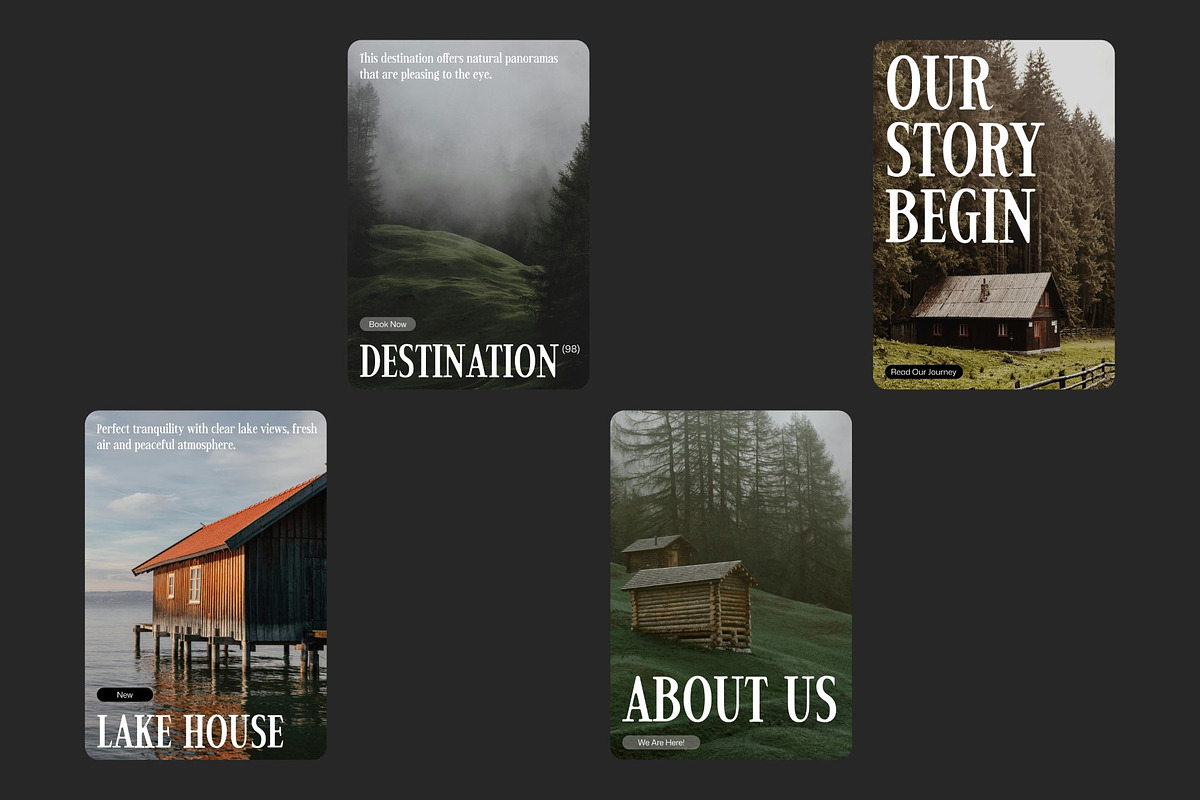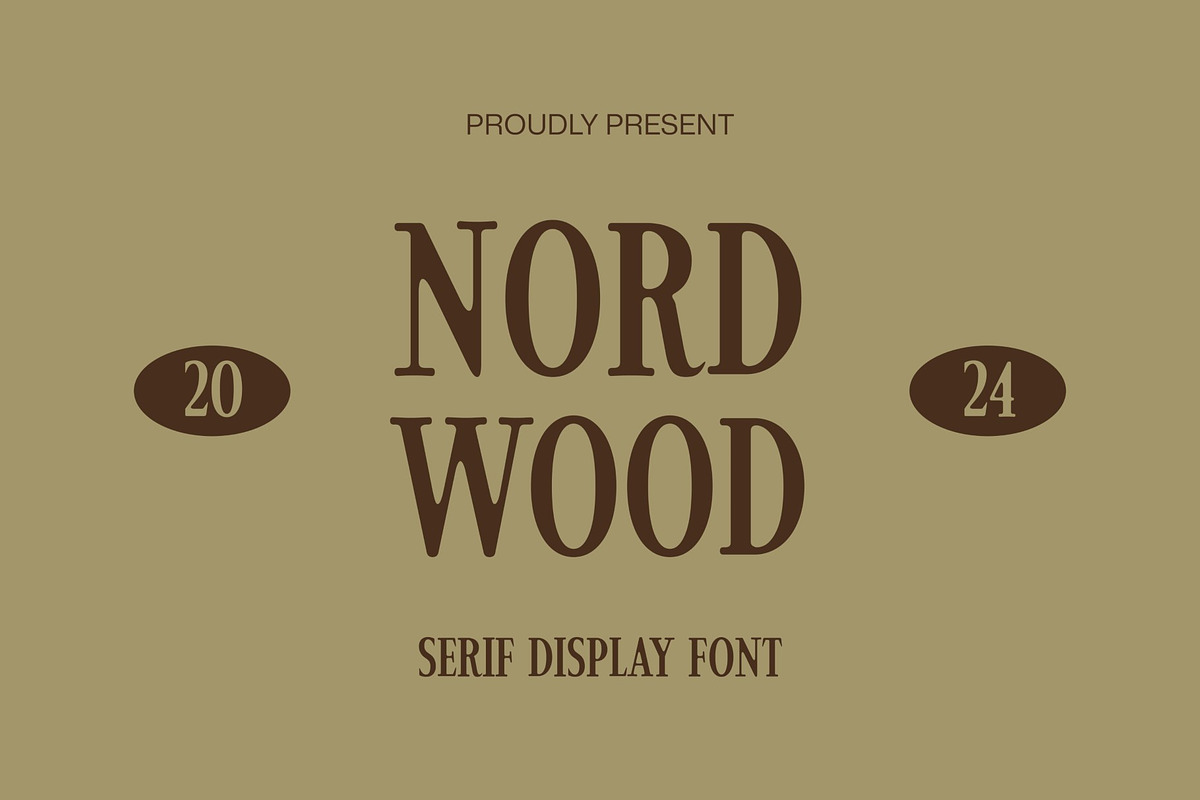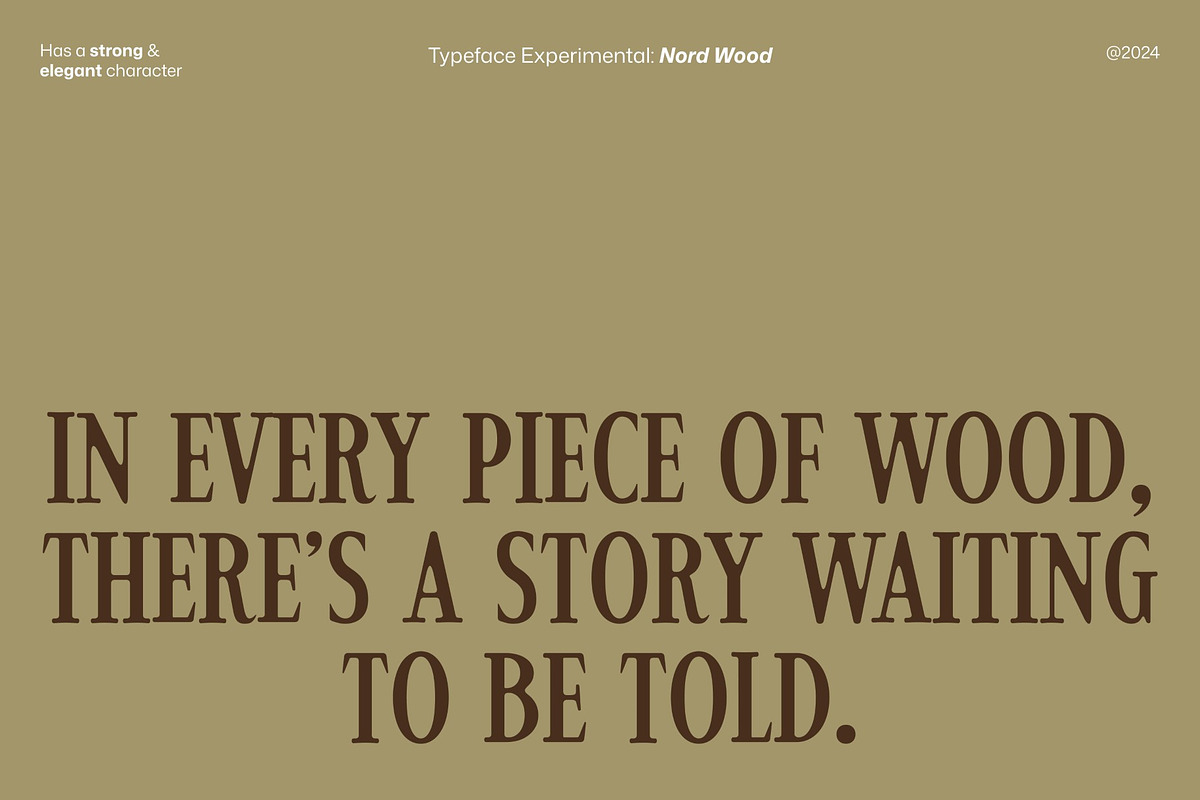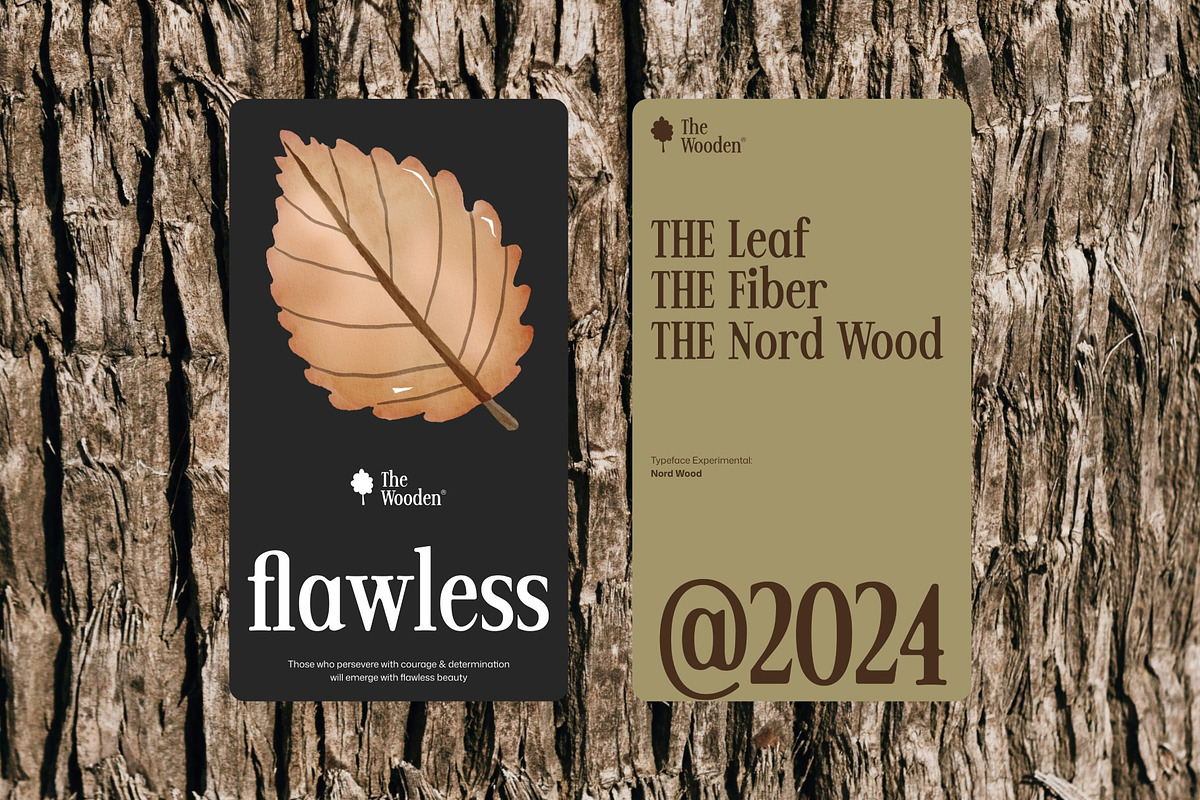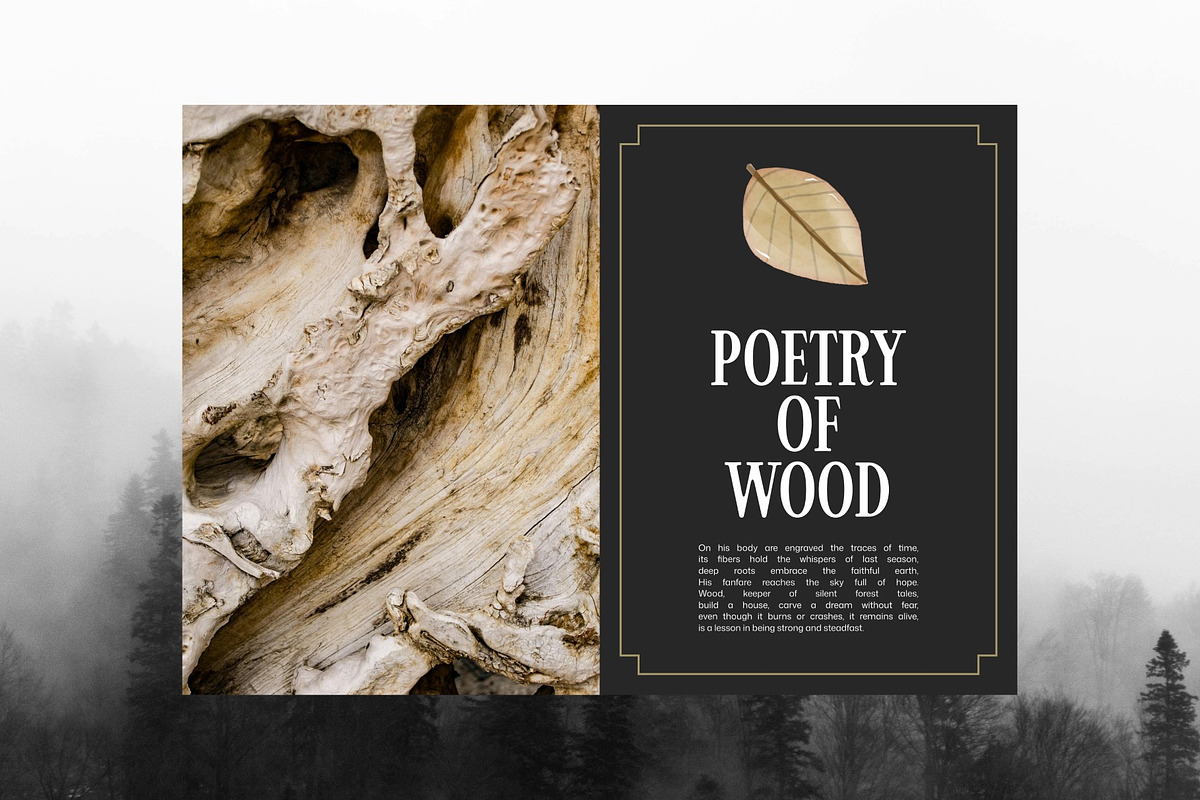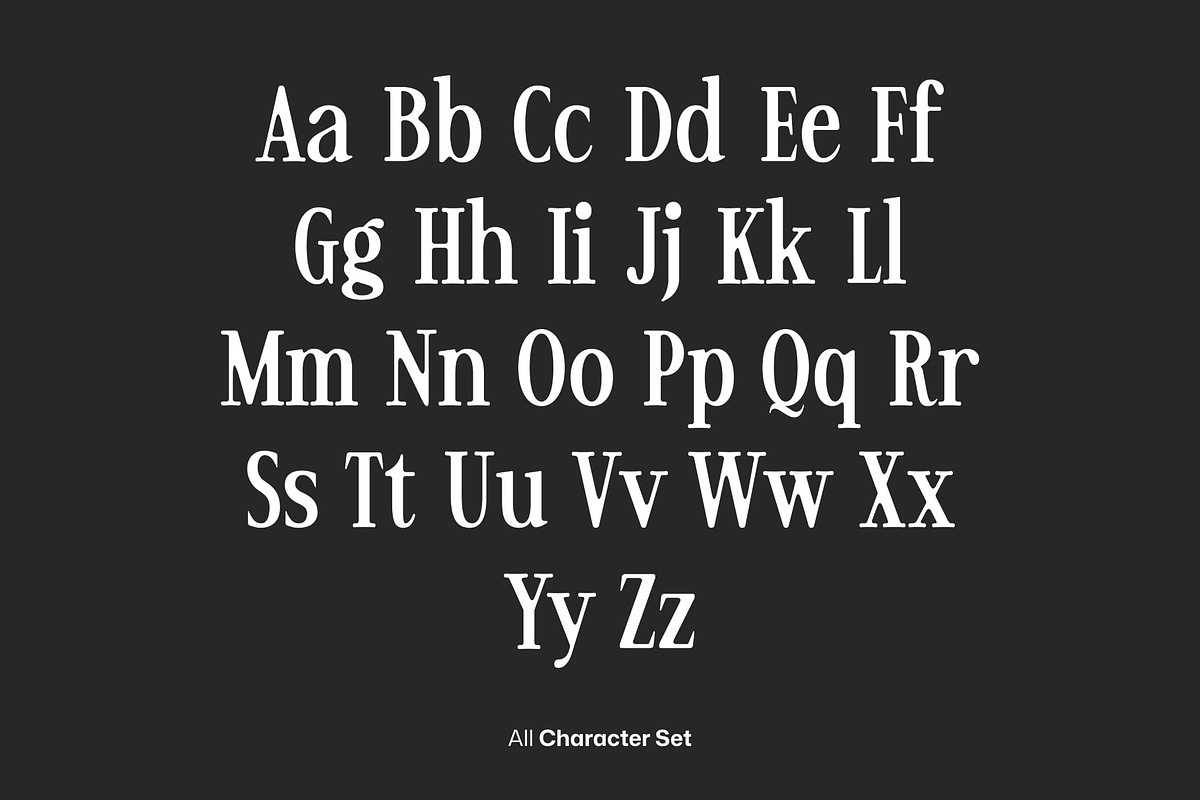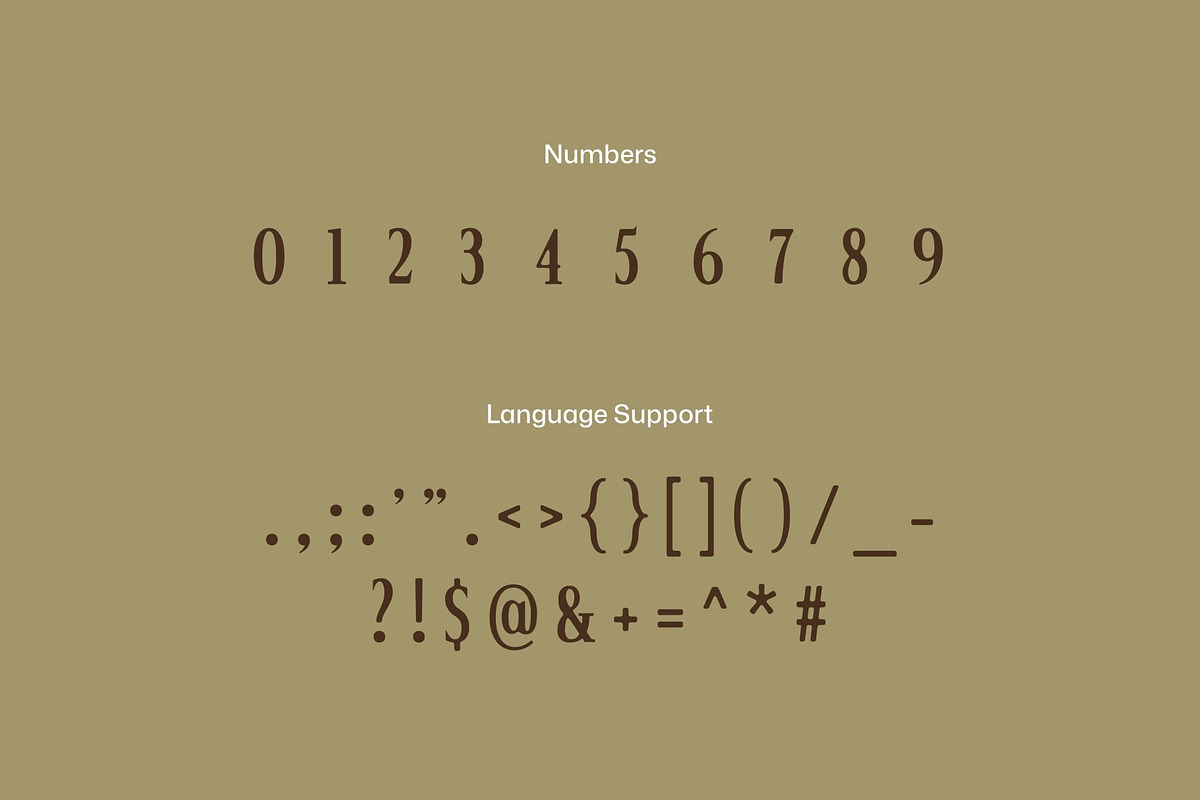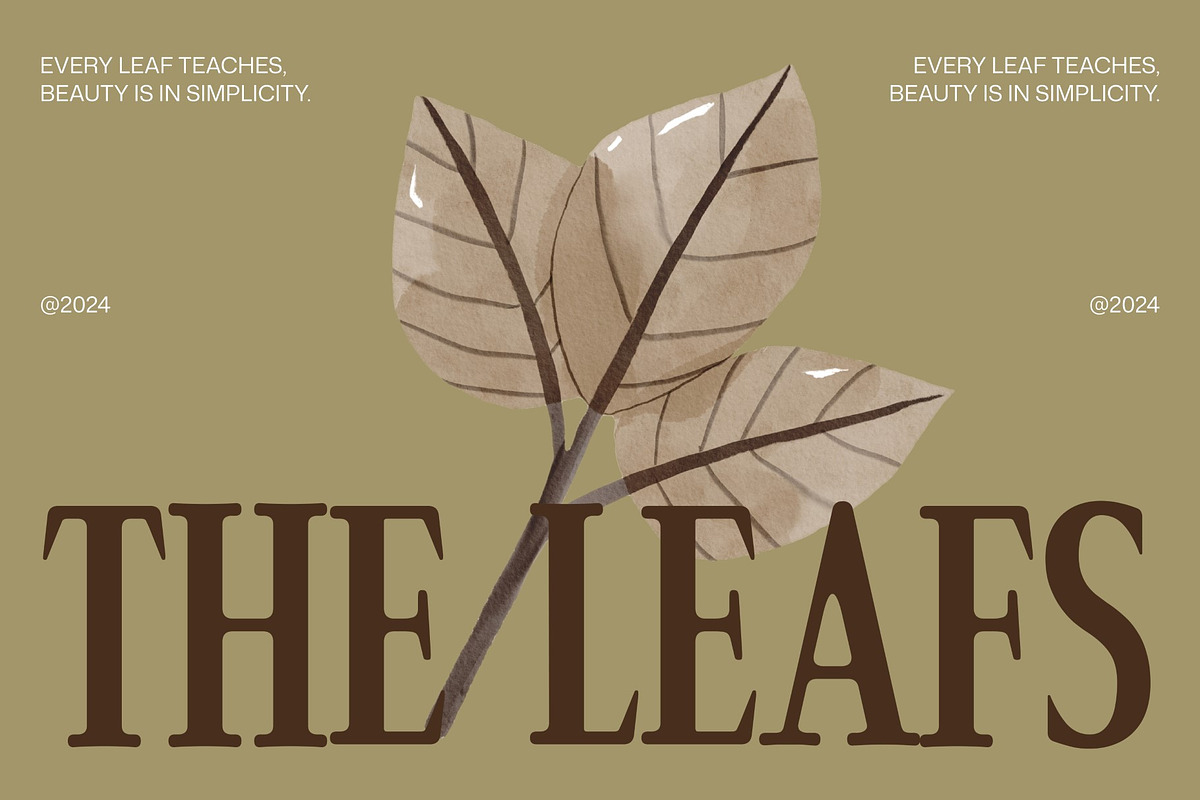
Nord Wood - Serif Display Font
Nord Wood is a classic serif display font with a rustic, timeless appeal. Its strong, elegant letterforms evoke a sense of tradition and craftsmanship. Perfect for branding, logos, packaging, and headlines, Nord Wood adds a touch of sophistication and warmth to any project. Its versatility makes it suitable for both vintage and contemporary designs.